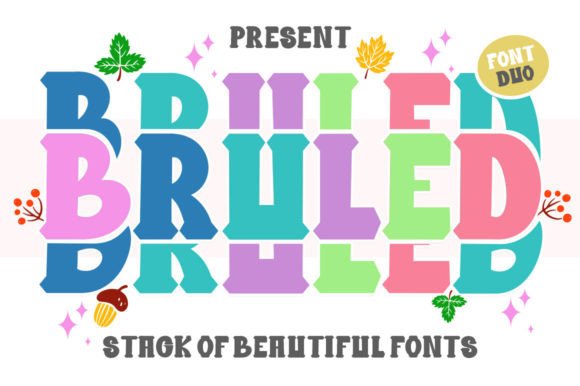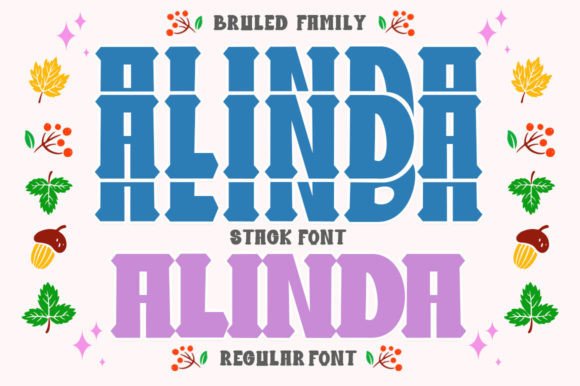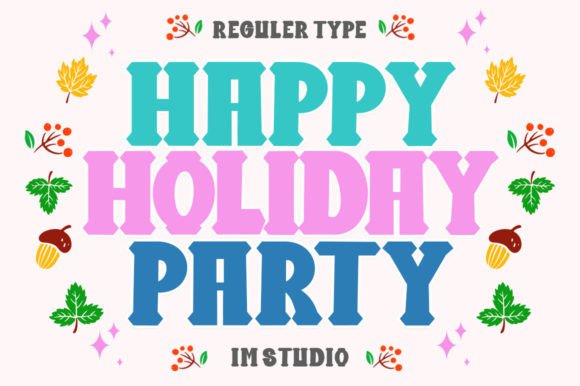
Bruled Stacked Duo Font
About the Bruled Stacked Duo Font
Make a bold statement with Bruled Stacked Duo Font, a powerful and memorable font. Bruled Stacked Duo is a Groovy font style in stacked effect. It has 2 glyphs to help you create trendy text designs. There are many designs that you can make yourself. Fun and perfect for everyone.
Bruled Stacked Duo’s playful, retro style makes it ideal for headlines, short taglines, and logos needing a bold, attention-grabbing presence. It works exceptionally well in posters, social media graphics, and packaging designs targeting a younger demographic or brands with a vibrant, energetic personality. However, its stacked nature and decorative glyphs make it unsuitable for body text or UI elements requiring high readability.
Consider pairing Bruled Stacked Duo with a clean sans-serif like Montserrat for a balanced contrast, or a modern serif such as Playfair Display for a touch of classic elegance. For a more playful feel, a rounded geometric sans-serif could work well. Avoid pairing it with other highly decorative or script fonts to prevent visual clutter.
The font projects a fun, energetic vibe, perfect for brands focused on youth culture, entertainment, or products with a retro aesthetic. Its versatility allows for a range of creative applications, but maintaining visual hierarchy through careful pairing with simpler fonts is key to success.